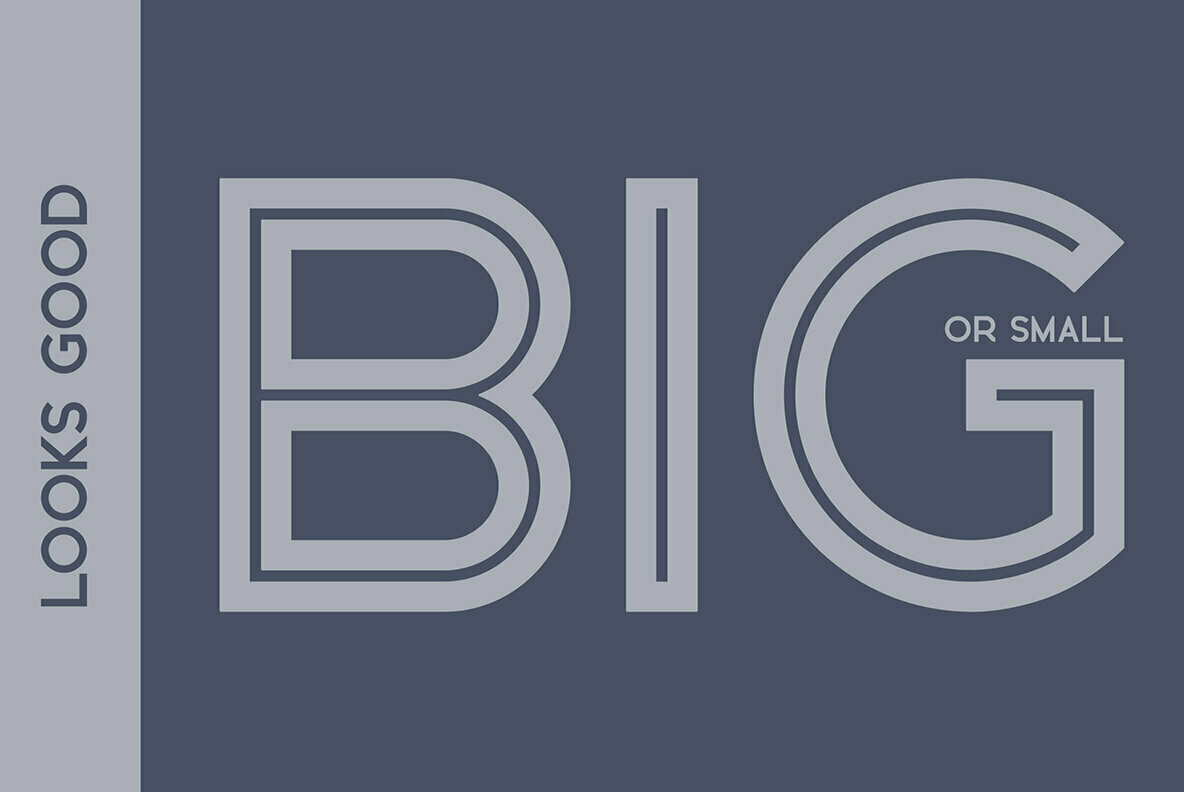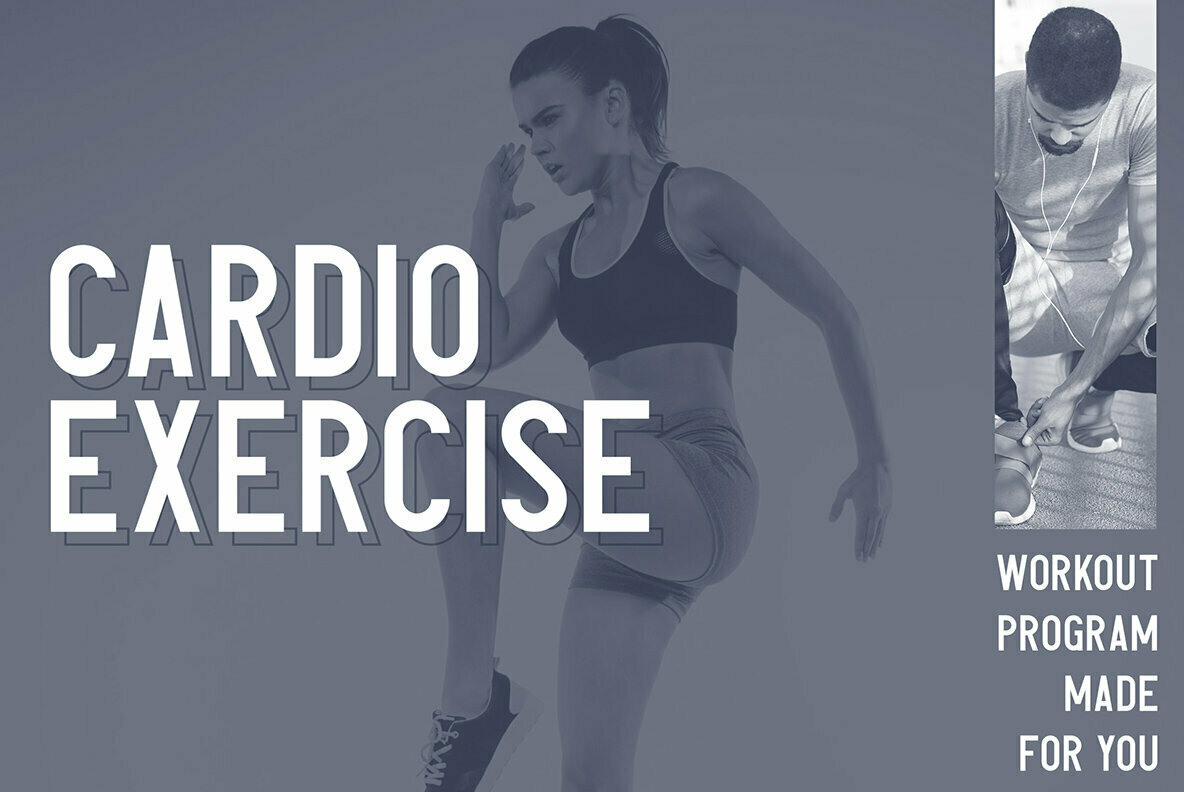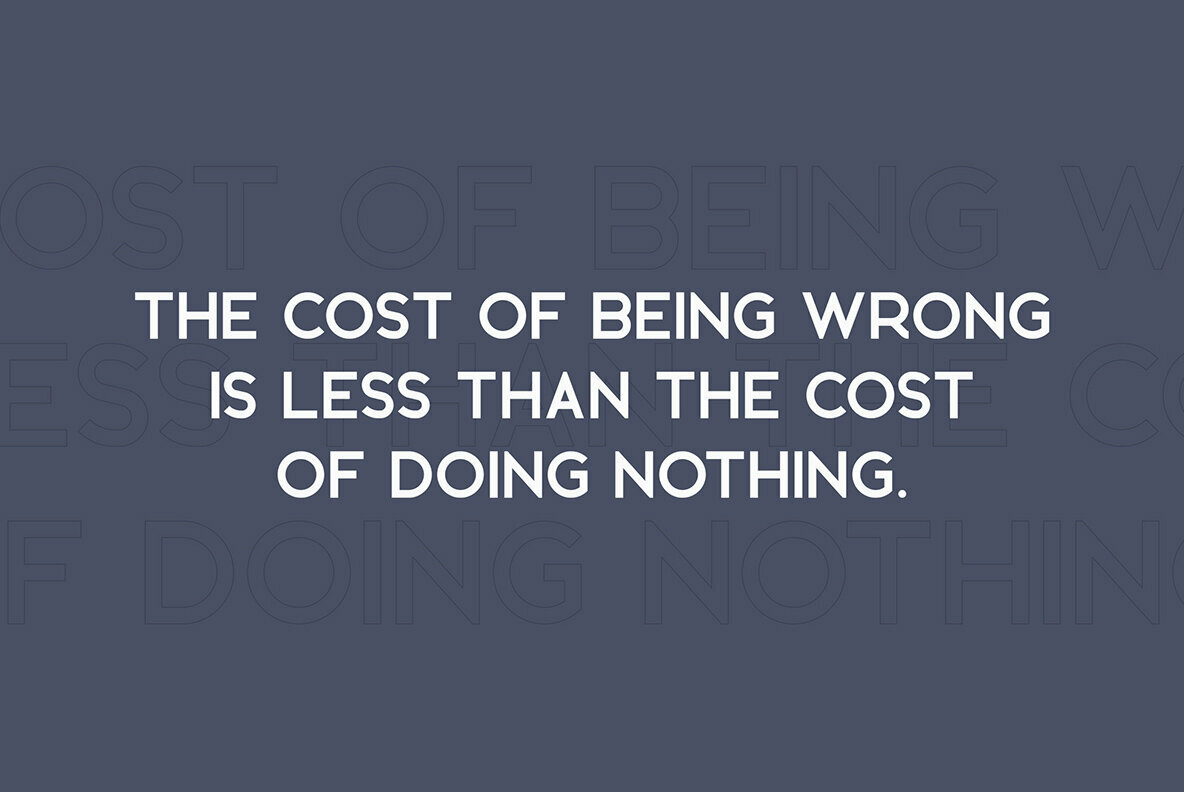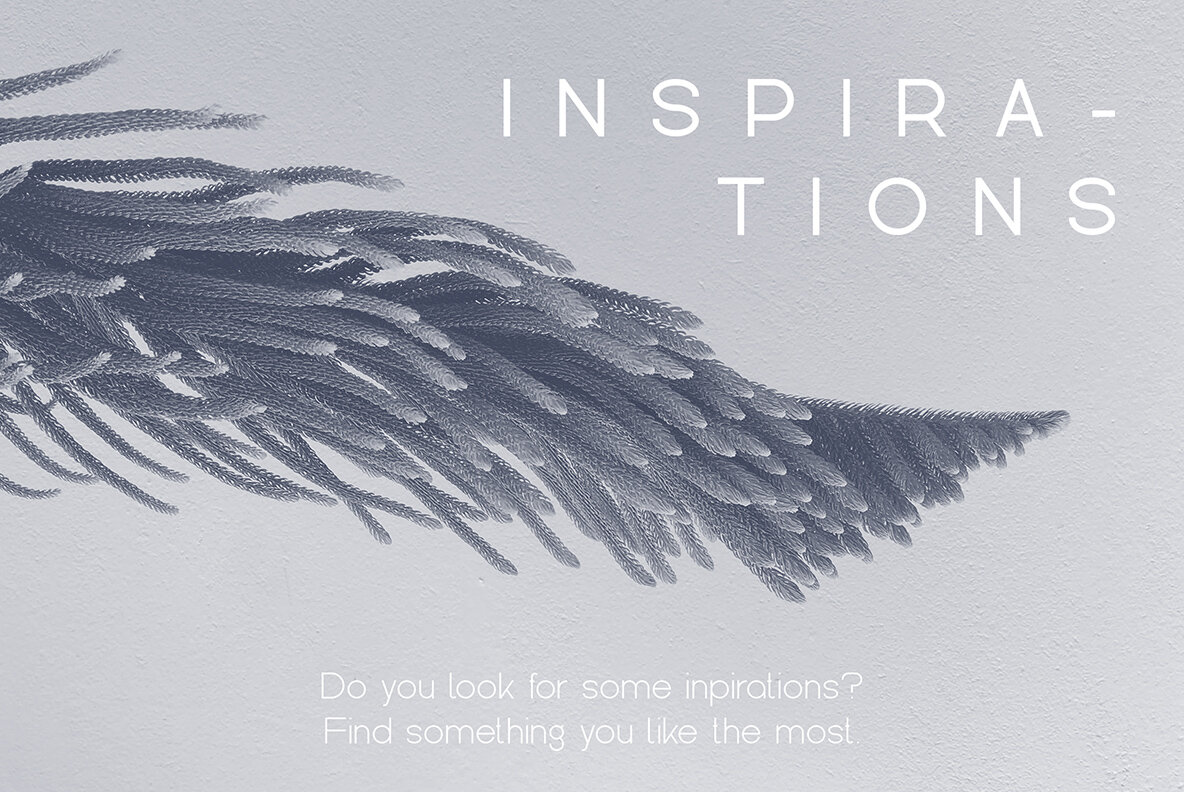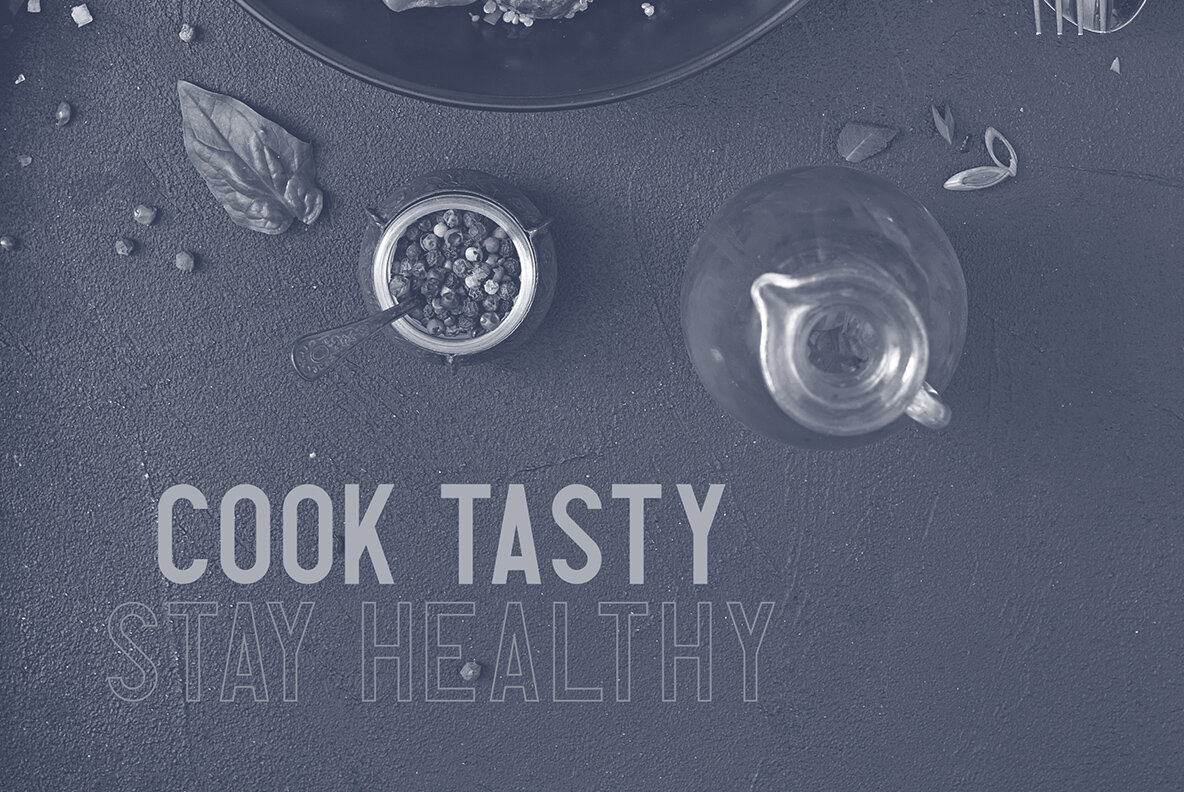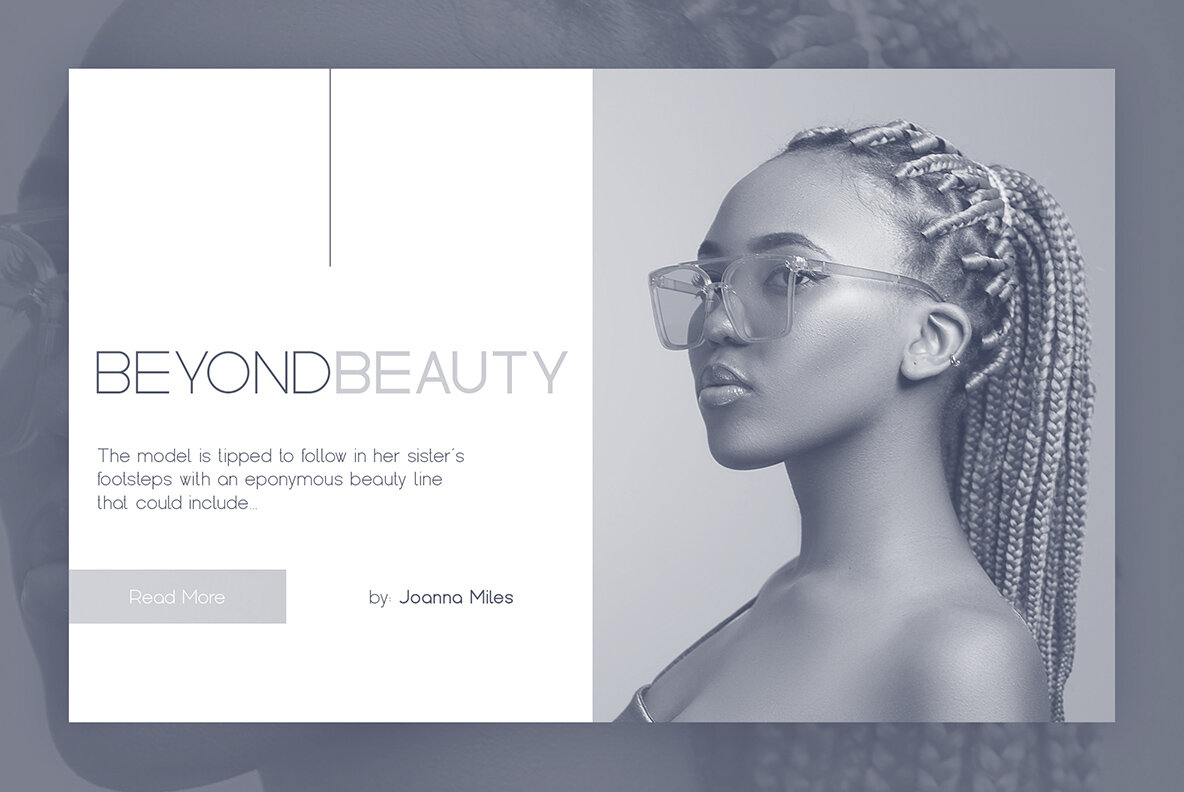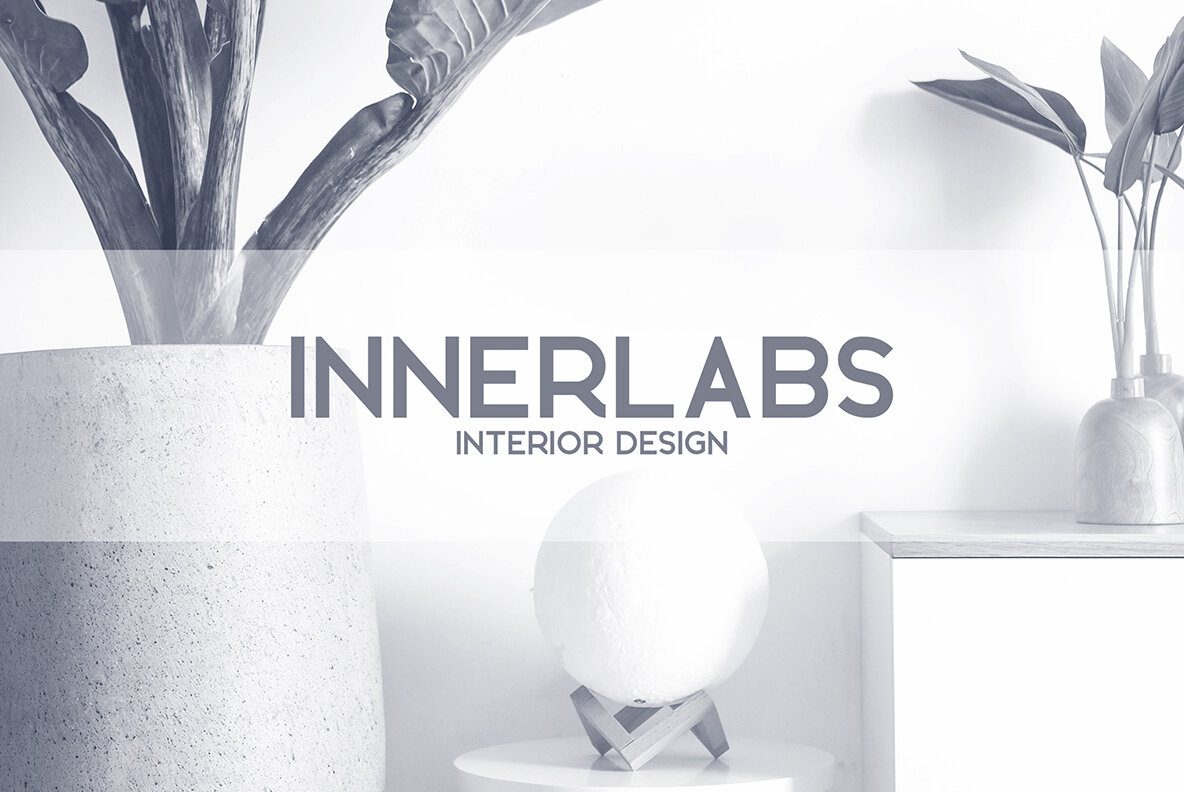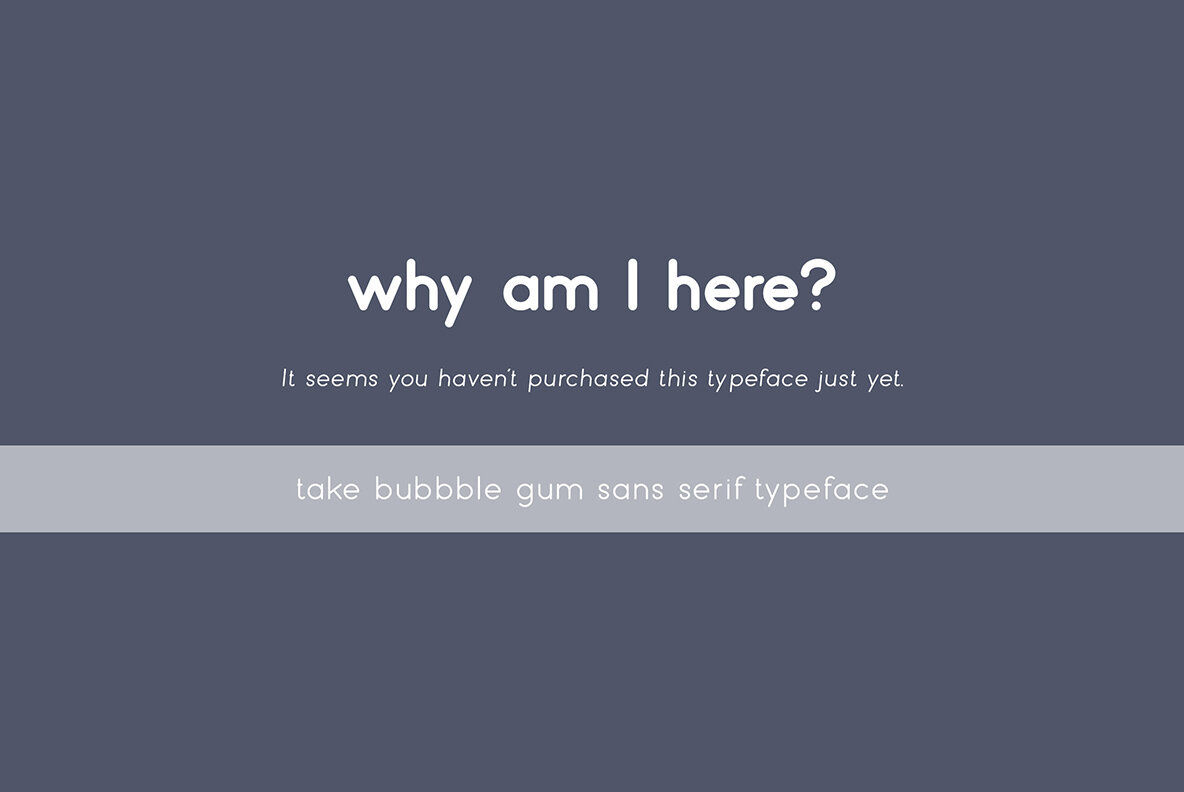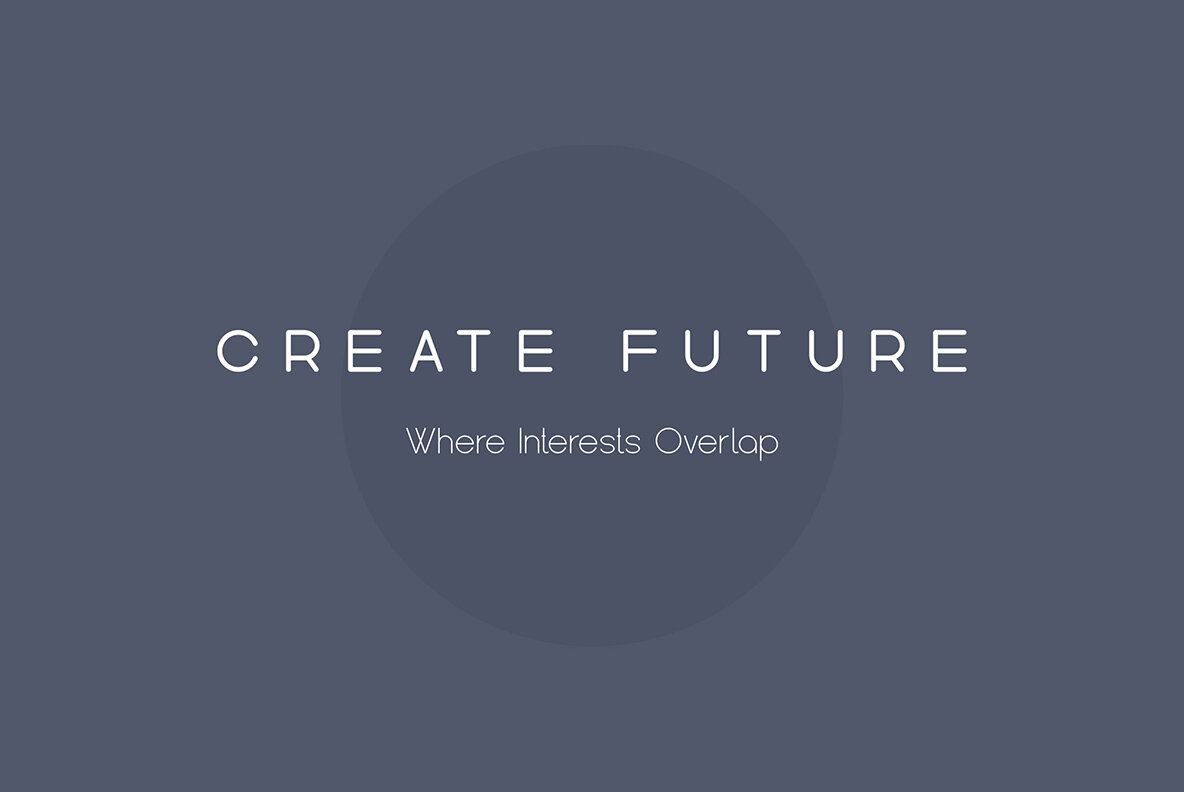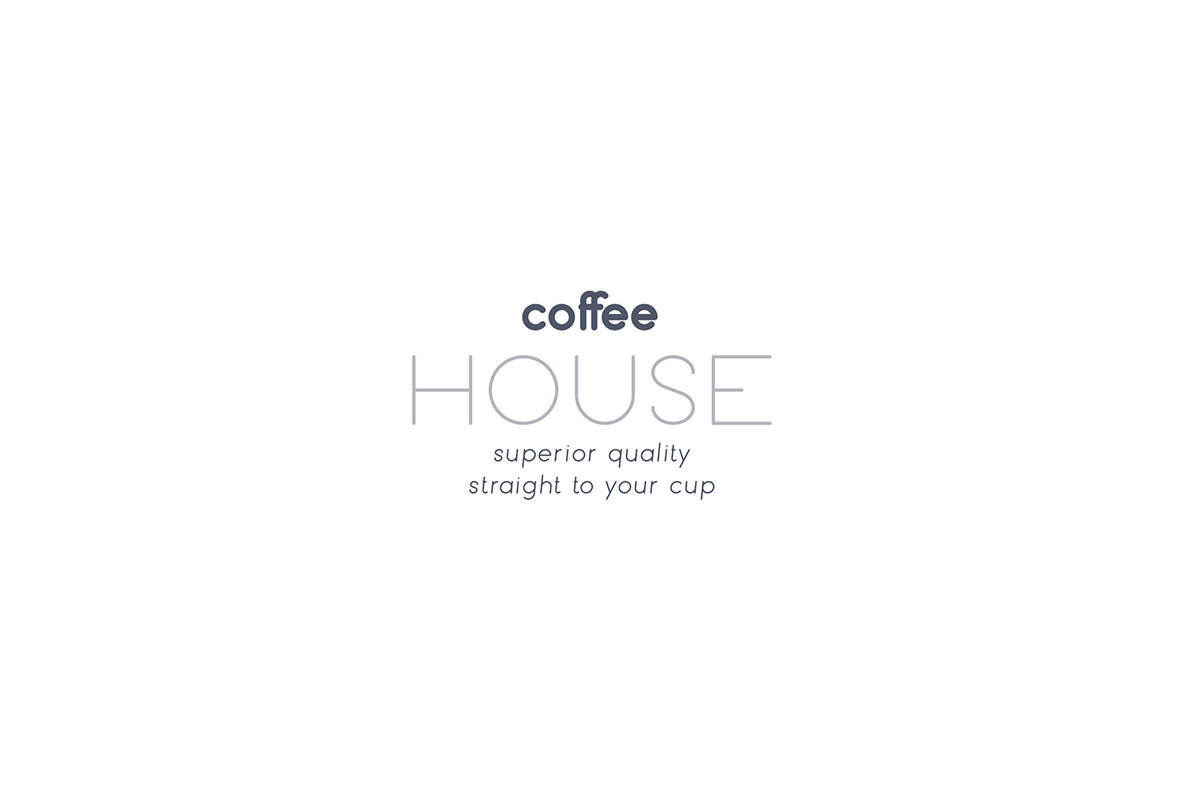
Casual Font Collection
The Casual Font Collection is an indispensable asset for designers seeking clean, urban typefaces. Comprising 29 fonts across 4 distinct typefaces, this collection supports a wide array of projects with its adaptable design. Whether you're crafting a striking brand identity, creating product packaging, designing home-ware, or composing magazine headers, these fonts lend a contemporary flair to your work. They transition seamlessly from large to small sizes, offering unparalleled versatility. This collection includes distinctive styles such as Avoqado Dots, Bronx Inline, and Kindel Rounded, making it suitable for a range of aesthetic needs. Enhance your design projects with these fonts, all offering comprehensive character sets including uppercase, lowercase, numerals, punctuation, and symbols.Casual Font Collection: Urban Versatility at Its Best